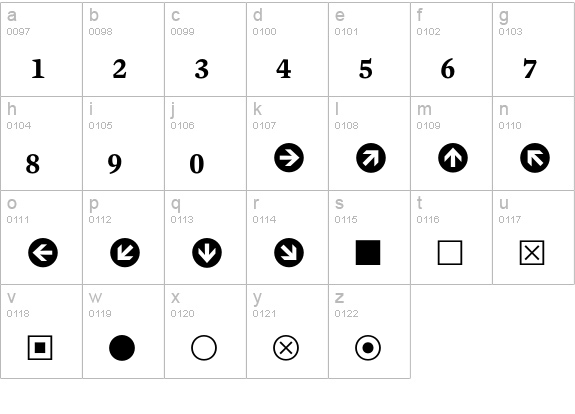
Mercury Numeric G1 Semibold is a sub-bold, structured variant in the Mercury typeface family \xE2\x80\x94 well suited to sub-headlines and emphasised passages.
The Mercury Numeric G1 Semibold font is a versatile and modern typeface that exudes confidence and professionalism. With its clean lines and sturdy presence, this font is perfect for conveying a sense of strength and authority in your designs. The Semibold weight adds just the right amount of emphasis without being too overpowering. What's even better is that the Mercury Numeric G1 Semibold font is completely free to use! You can easily download it from FontsMarket.com and start using it in your projects right away. Whether you're designing a sleek corporate presentation or a bold poster, this font will elevate your work to the next level. Don't miss out on this fantastic opportunity to enhance your designs with the Mercury Numeric G1 Semibold font – get it for free today!